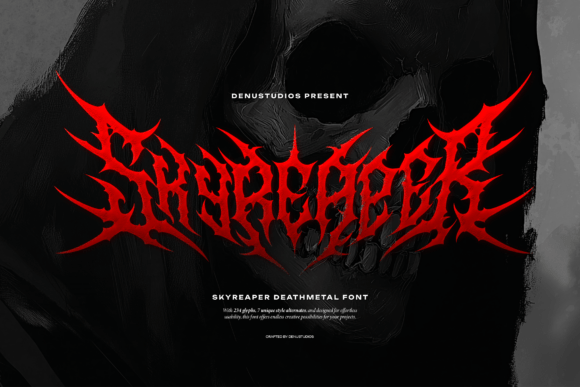
Skyreaper Font: Unleash the Fury of Death Metal in Your Designs
In the realm of typography, few fonts evoke the same level of intensity and aggression as Skyreaper. This razor-sharp death metal font is designed to bring brutal energy and chaotic elegance to your designs, making it the perfect choice for band logos, horror posters, album covers, and underground merchandise.
The Inspiration Behind Skyreaper
Skyreaper’s design is rooted in the dark, aggressive aesthetic of death metal music. The font’s twisted, spiked letterforms are reminiscent of the genre’s intense energy and rebellious spirit. Each character is carefully crafted to convey a sense of chaos and disorder, making it an ideal fit for designs that require a bold, attention-grabbing presence.
Key Features of Skyreaper Font
- 234 Glyphs: Skyreaper includes a comprehensive set of 234 glyphs, covering a wide range of characters and symbols. This extensive character set ensures that you have everything you need to create complex designs.
- 7 Style Alternates: To further enhance your creative possibilities, Skyreaper offers 7 style alternates. These variations allow you to experiment with different looks and feels, ensuring that your designs always stand out.
- Twisted, Spiked Letterforms: The font’s unique letterforms are characterized by twisted, spiked details that add to its aggressive, death metal aesthetic.
- Intensive Visual Punch: Skyreaper is designed to make a statement. Its bold, intense visual presence ensures that your designs demand attention.
Use Cases for Skyreaper Font
Skyreaper’s versatility makes it suitable for a wide range of design applications. Here are some of the most popular use cases:
- Band Logos: Create striking logos for death metal bands, capturing the essence of their music and aesthetic.
- Horror Posters: Add a touch of darkness and terror to your horror movie posters, book covers, or promotional materials.
- Album Covers: Elevate your music album covers with a bold, eye-catching font that reflects the intensity of the music.
- Underground Merch: Design merchandise for the underground music scene, including t-shirts, stickers, and other promotional items.
Tips for Using Skyreaper Font Effectively
To get the most out of Skyreaper, consider the following tips:
- Experiment with Style Alternates: Take advantage of the font’s 7 style alternates to create unique variations and add visual interest to your designs.
- Pair with Complementary Fonts: Combine Skyreaper with other fonts that complement its aggressive, death metal aesthetic. This will help create a cohesive look that reinforces your design’s message.
- Balance Legibility and Style: While Skyreaper is designed to be bold and attention-grabbing, it’s essential to balance style with legibility. Ensure that your text remains readable, even at smaller sizes.
Skyreaper font is a powerful tool for designers looking to inject their work with the raw energy of death metal. With its twisted, spiked letterforms and extensive character set, this font is perfect for creating bold, eye-catching designs that demand attention. Whether you’re working on band logos, horror posters, album covers, or underground merchandise, Skyreaper is the ideal choice for adding a touch of chaotic elegance to your work.